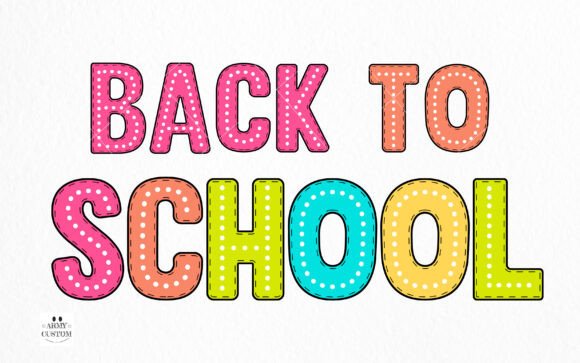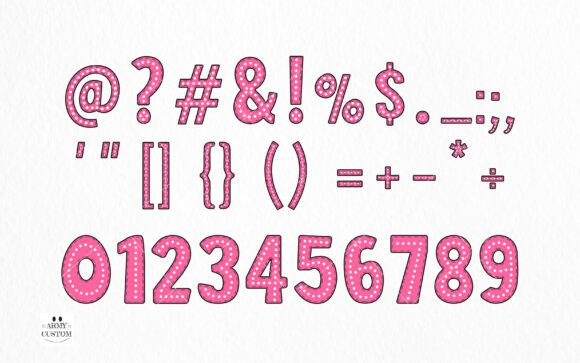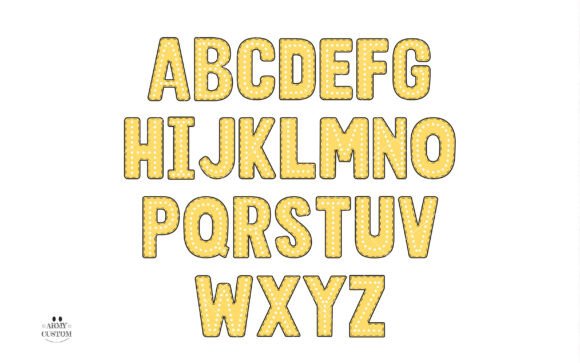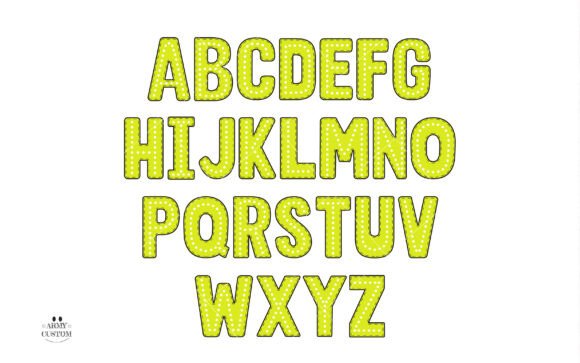
Dotted Back to School Font
Introducing Dotted Rainbow font – an enchanting mix of whimsy and vibrancy designed to infuse your creative projects with an element of joy and playfulness. Ideal for injecting charm into any cute-theme endeavor, this color font paints a canvas of creativity that leaps off the page. Harness the power of Dotted Rainbow and let your imagination take flight.